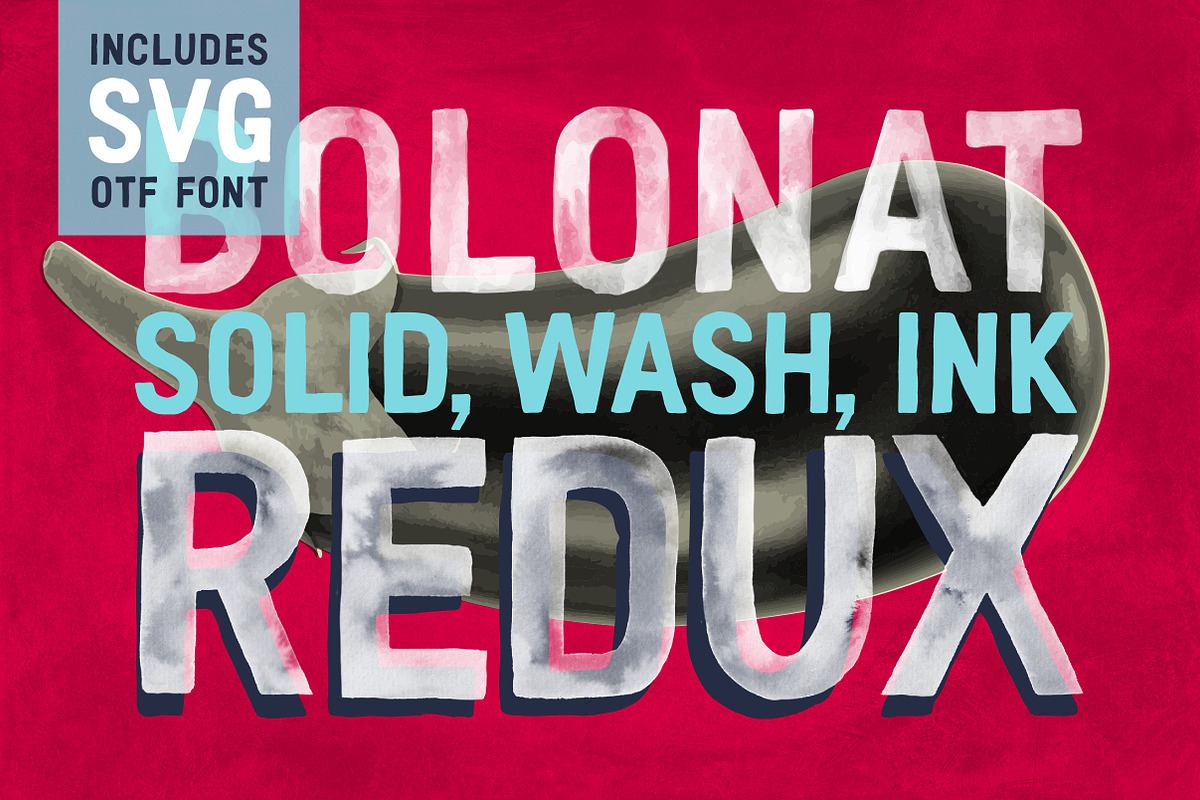
Bolonat Watercolor SVG & OTF Fonts Free Download is a beautiful, hand-painted watercolor font that adds a personal, artistic touch to your designs. Featuring both SVG and OTF font formats, this collection offers you the flexibility to incorporate realistic watercolor strokes into your typography, making it perfect for creative, artsy projects, branding, invitations, posters, and any design that needs a soft, flowing, and handmade feel.
The SVG version provides a true watercolor effect with intricate brush strokes and texture, while the OTF version gives you a more traditional, scalable font for standard use. Whether you're working on invitations, greeting cards, social media graphics, or creative branding, Bolonat Watercolor Font brings a unique, artistic edge to your designs.
Add a splash of creativity to your work with Bolonat Watercolor SVG & OTF Fonts Free Download and create beautiful, artistic typography with ease. Perfect for designers looking to bring a watercolor touch to their creative projects.